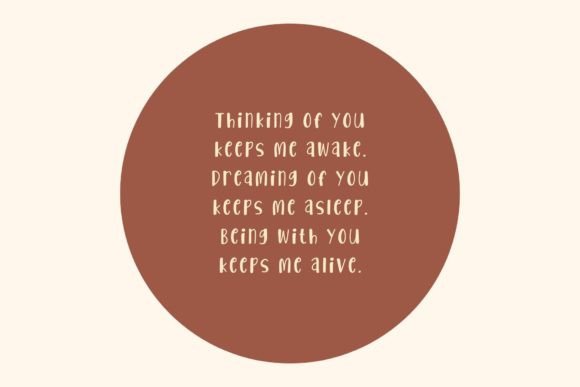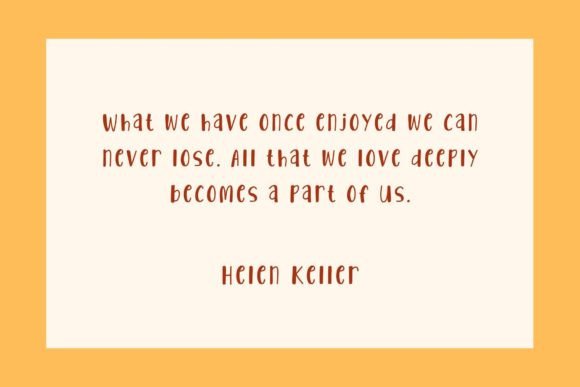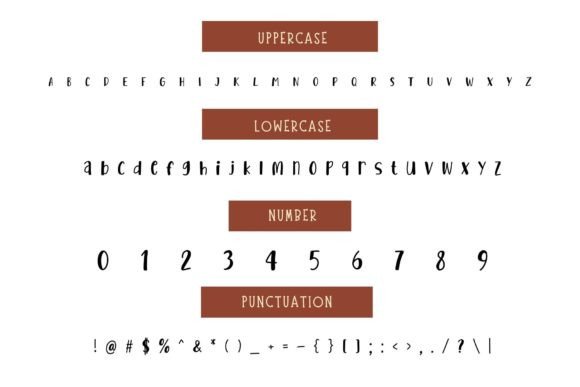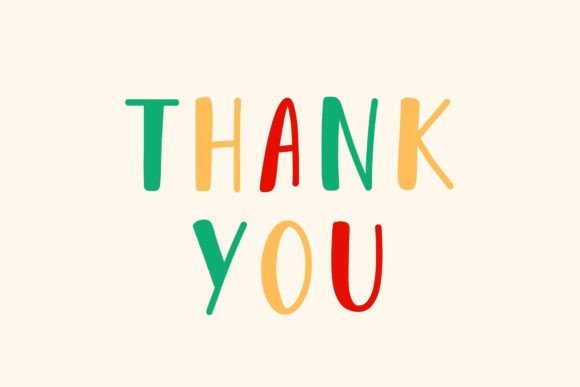
Brock Font: The Perfect Handwritten Font for Your Creative Projects
Are you looking for a font that embodies playfulness and authenticity? Look no further than Brock Font! This cute handwritten font is perfect for adding a personal touch to your designs, and its versatility makes it suitable for a wide range of projects.
What is Brock Font?
Brock Font is a beautiful, handwritten font that is designed to bring a sense of fun and personality to your designs. Its playful and authentic feel makes it perfect for a variety of creative projects, from blog posts and logos to branding and advertising.
Characteristics of Brock Font
So, what makes Brock Font so special? Here are just a few of its key characteristics:
- Playful and Authentic: Brock Font has a carefree, handwritten feel that is perfect for adding a personal touch to your designs.
- Versatile: This font is suitable for a wide range of projects, from digital designs to print materials.
- Cute and Whimsical: Brock Font is a cute and whimsical font that is sure to add a touch of personality to your designs.
Uses for Brock Font
So, what can you use Brock Font for? The possibilities are endless! Here are just a few ideas to get you started:
- Blog Posts: Add a personal touch to your blog posts with Brock Font. It’s perfect for headings, titles, and even body text.
- Logos and Branding: Create a unique and memorable logo with Brock Font. Its playful feel makes it perfect for brands that want to stand out.
- Ads and Marketing Materials: Use Brock Font to add a touch of personality to your ads and marketing materials. It’s sure to grab attention and leave a lasting impression.
- Invitations and Greeting Cards: Brock Font is perfect for creating beautiful, handmade-style invitations and greeting cards.
- Planners and Photo Albums: Add a personal touch to your planners and photo albums with Brock Font. It’s a great way to make your designs more special and meaningful.
- Decorations: Use Brock Font to create beautiful decorations, such as wall art, signs, and banners.
Why Choose Brock Font?
So, why should you choose Brock Font for your next project? Here are just a few reasons:
- Easy to Read: Brock Font is easy to read, even at small sizes.
- Highly Versatile: This font is suitable for a wide range of projects, from digital designs to print materials.
- Unique and Memorable: Brock Font has a unique and memorable feel that is sure to make your designs stand out.
Tips for Using Brock Font
Here are a few tips for using Brock Font in your designs:
- Use it Sparingly: Brock Font is a bold font, so use it sparingly to add emphasis and personality to your designs.
- Experiment with Colors: Brock Font looks great in a variety of colors, so don’t be afraid to experiment and find the perfect color for your design.
- Pair it with Other Fonts: Brock Font pairs well with other fonts, so try pairing it with a sans-serif font for a bold and modern look.
In conclusion, Brock Font is a beautiful, handwritten font that is perfect for adding a personal touch to your designs. Its playful and authentic feel makes it suitable for a wide range of projects, from blog posts and logos to branding and advertising. With its ease of use, versatility, and unique feel, Brock Font is a great choice for designers and crafters looking to add a touch of personality to their designs.